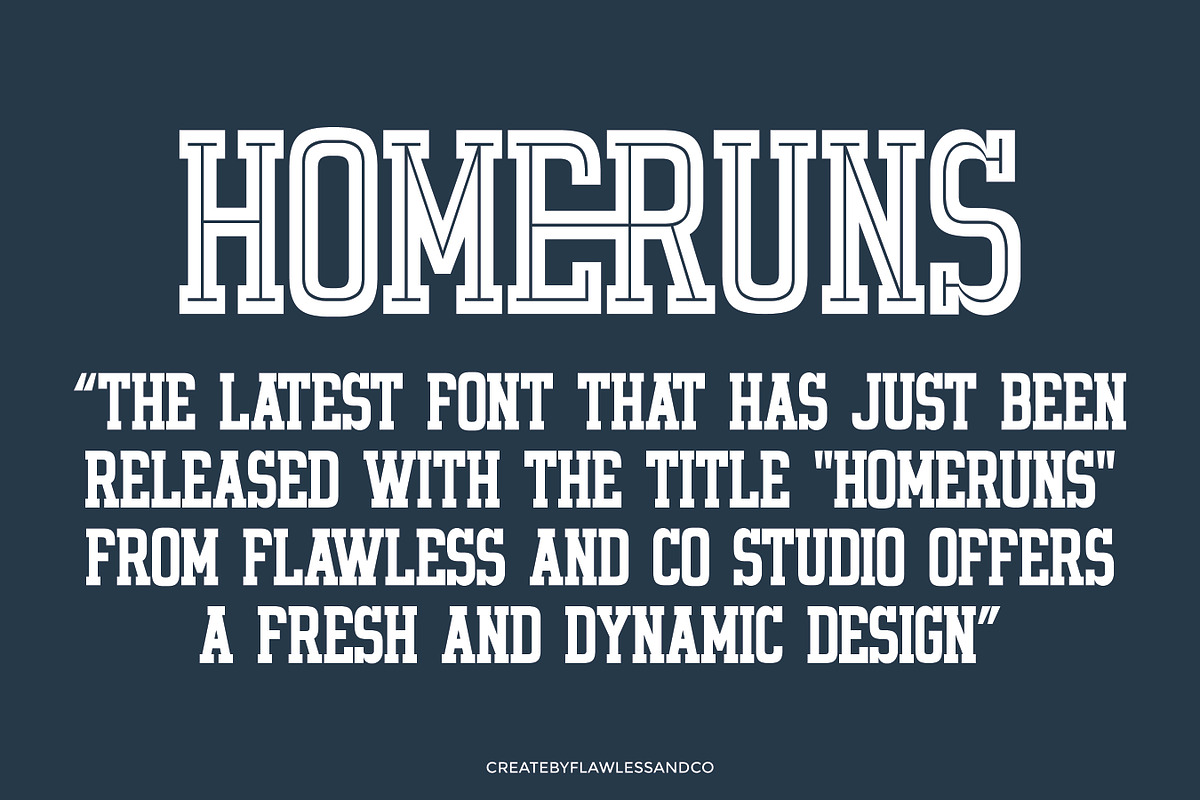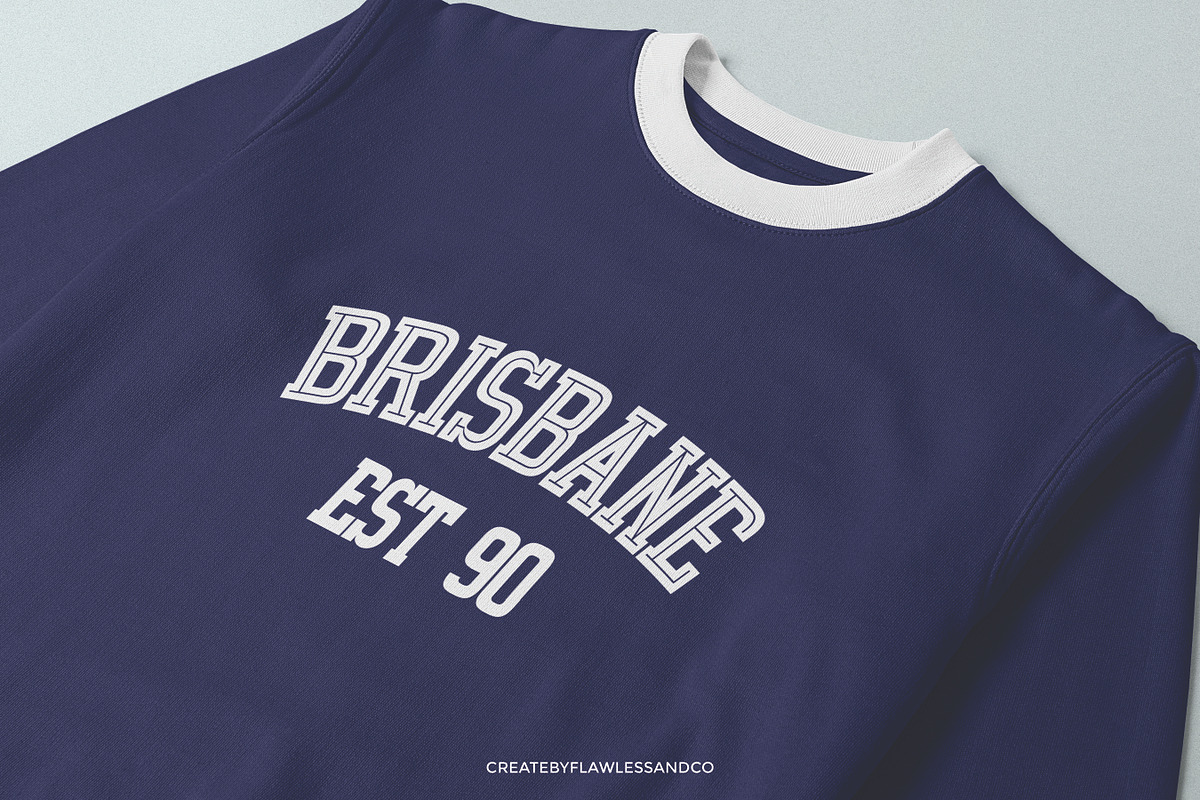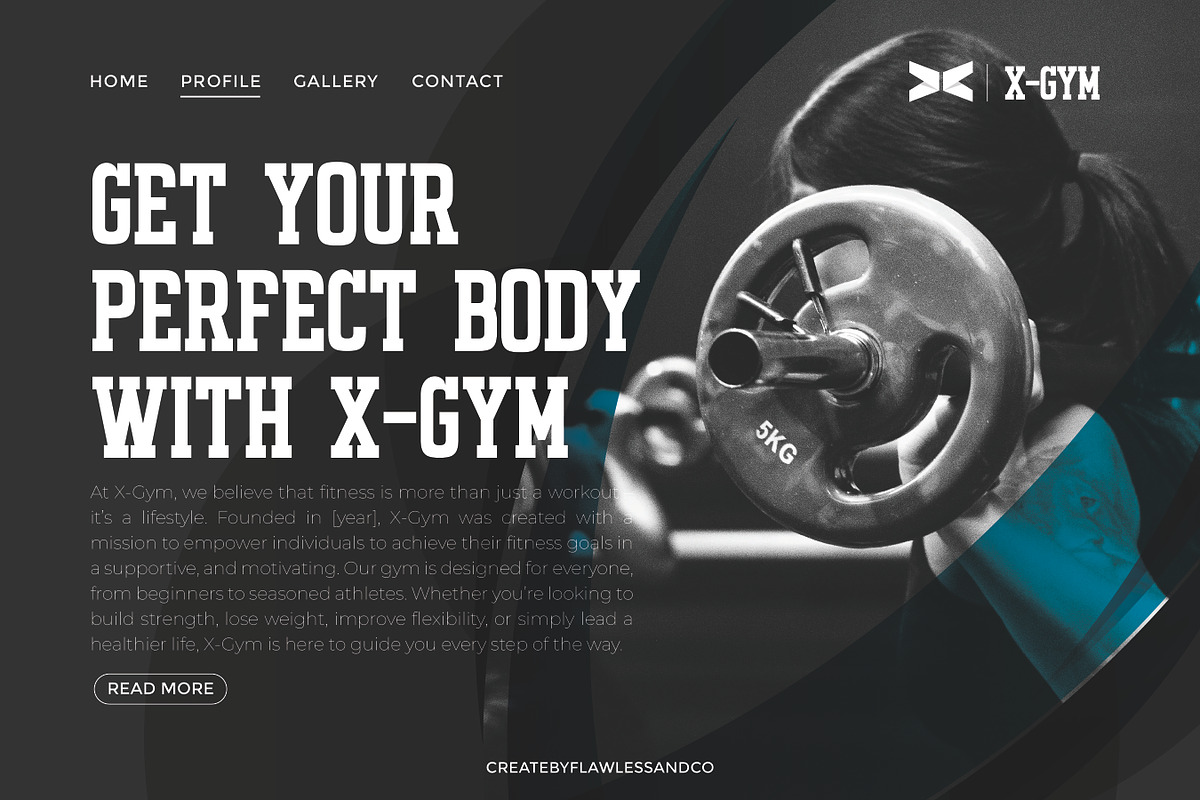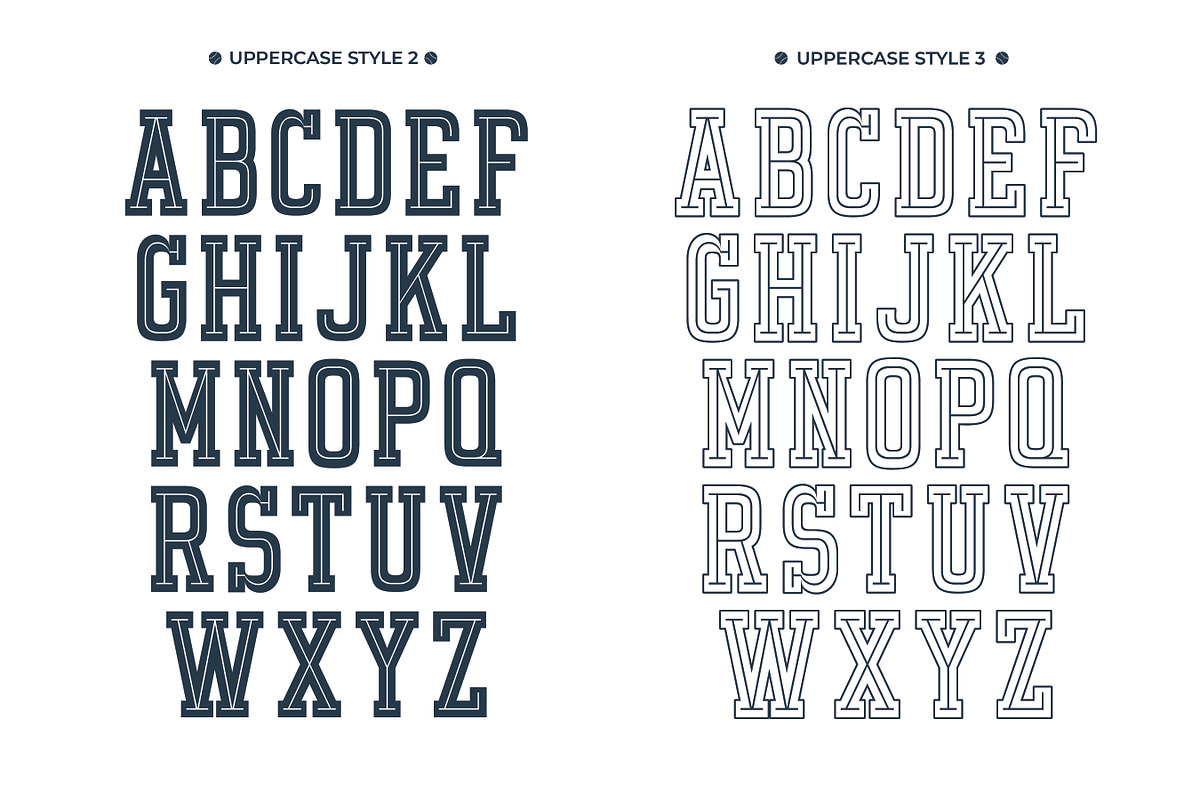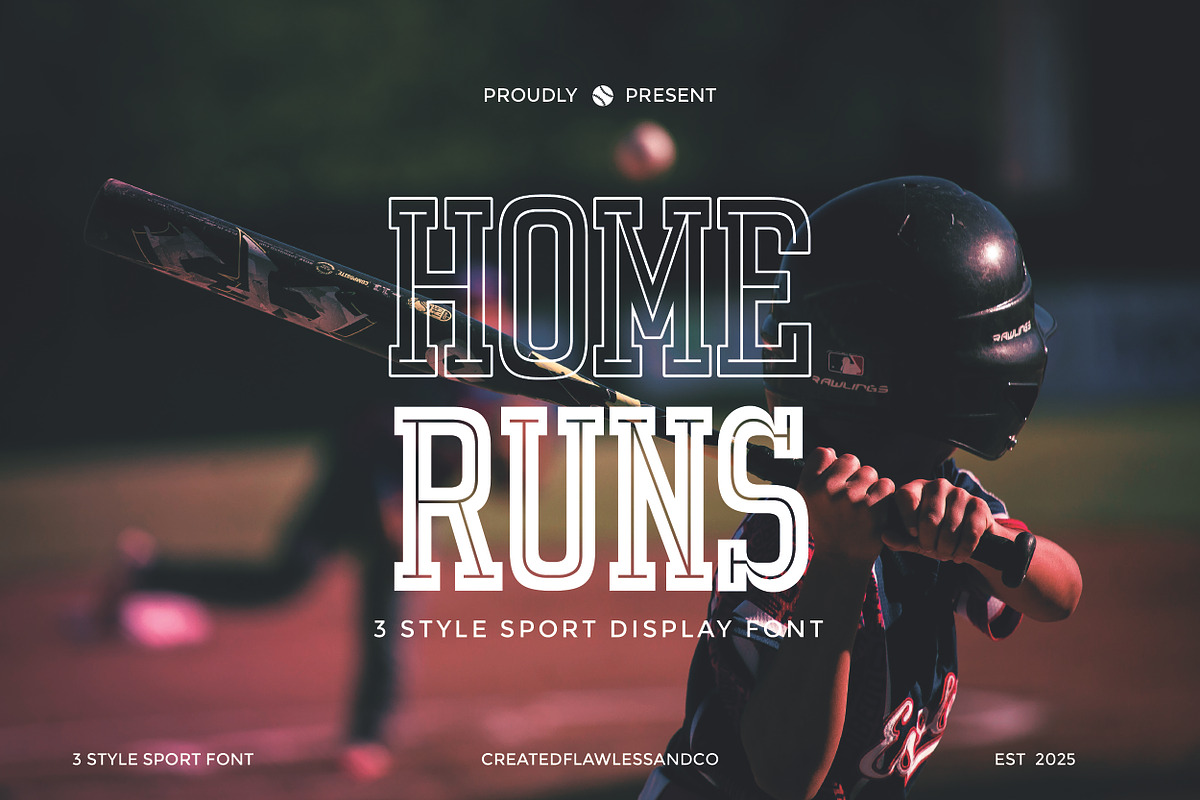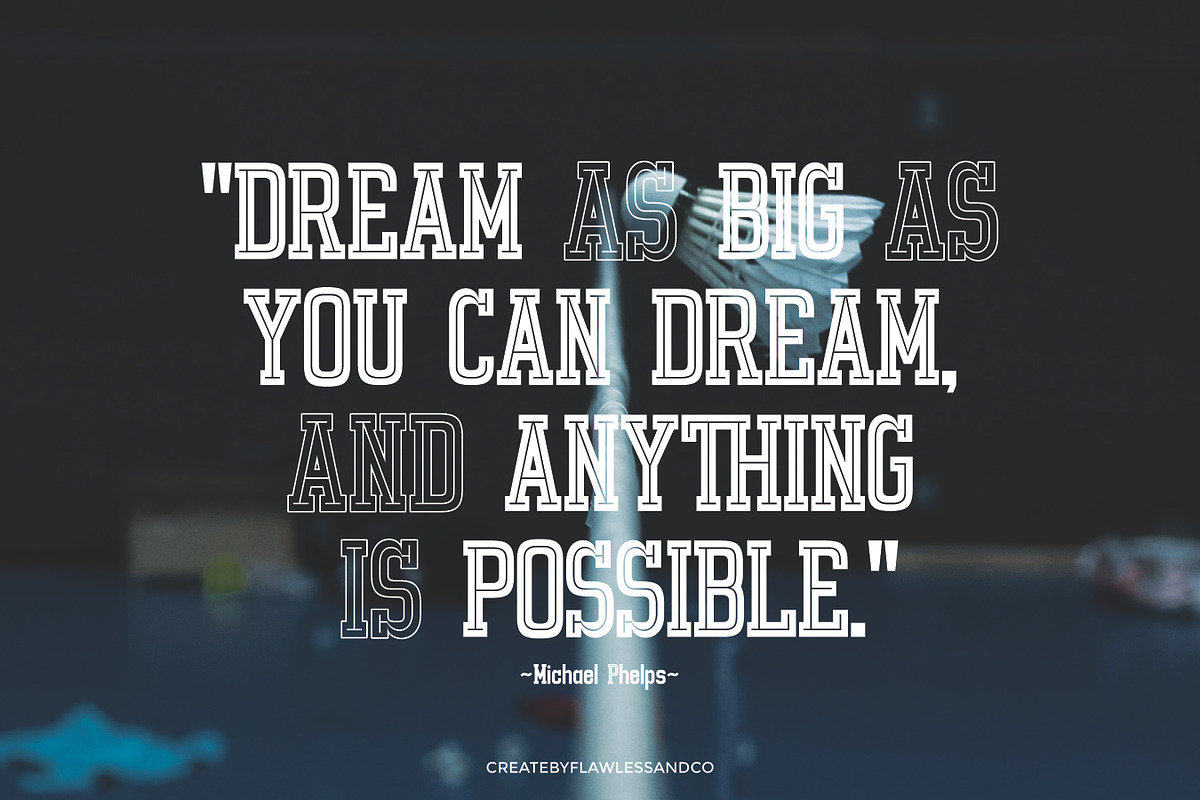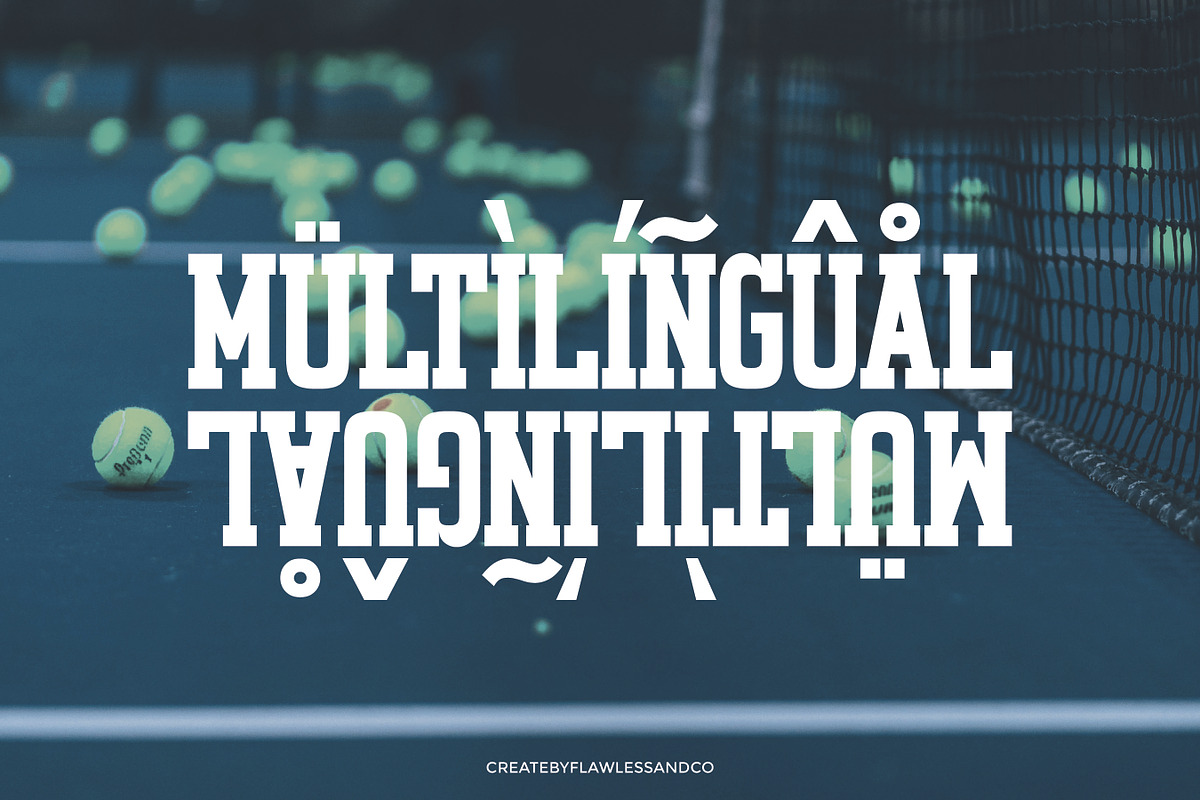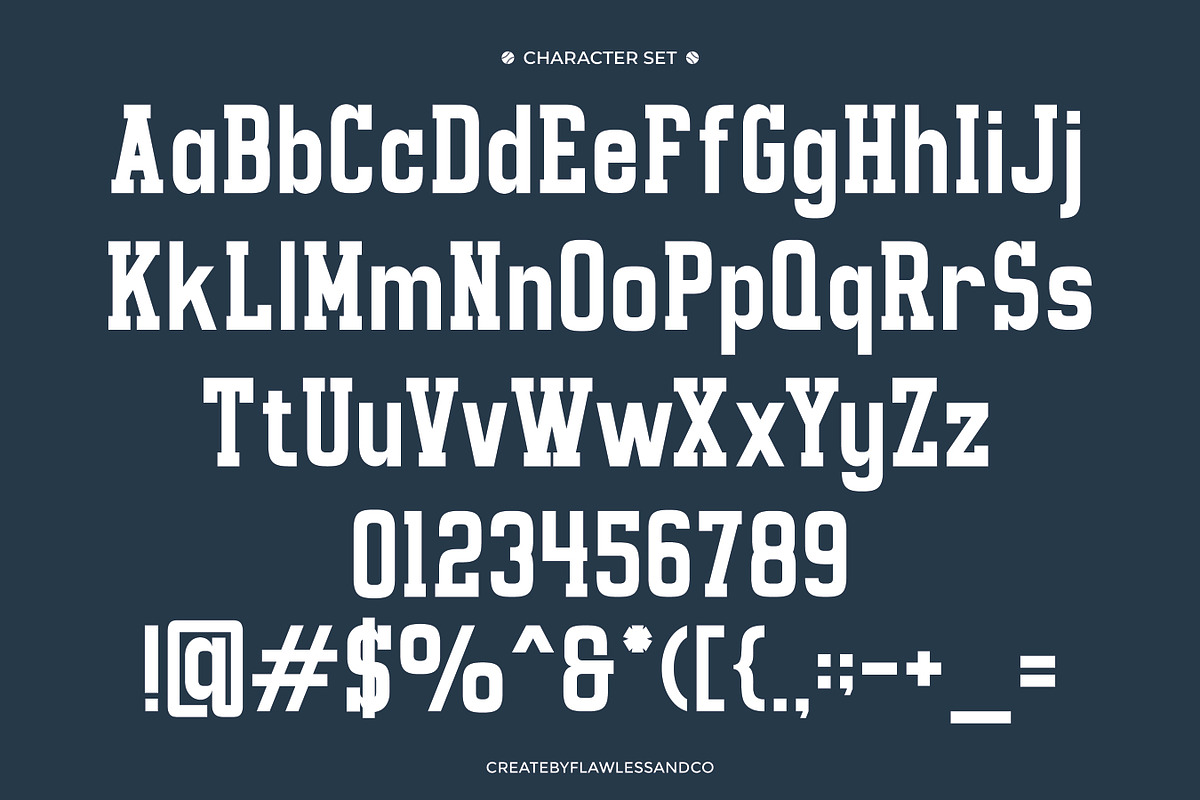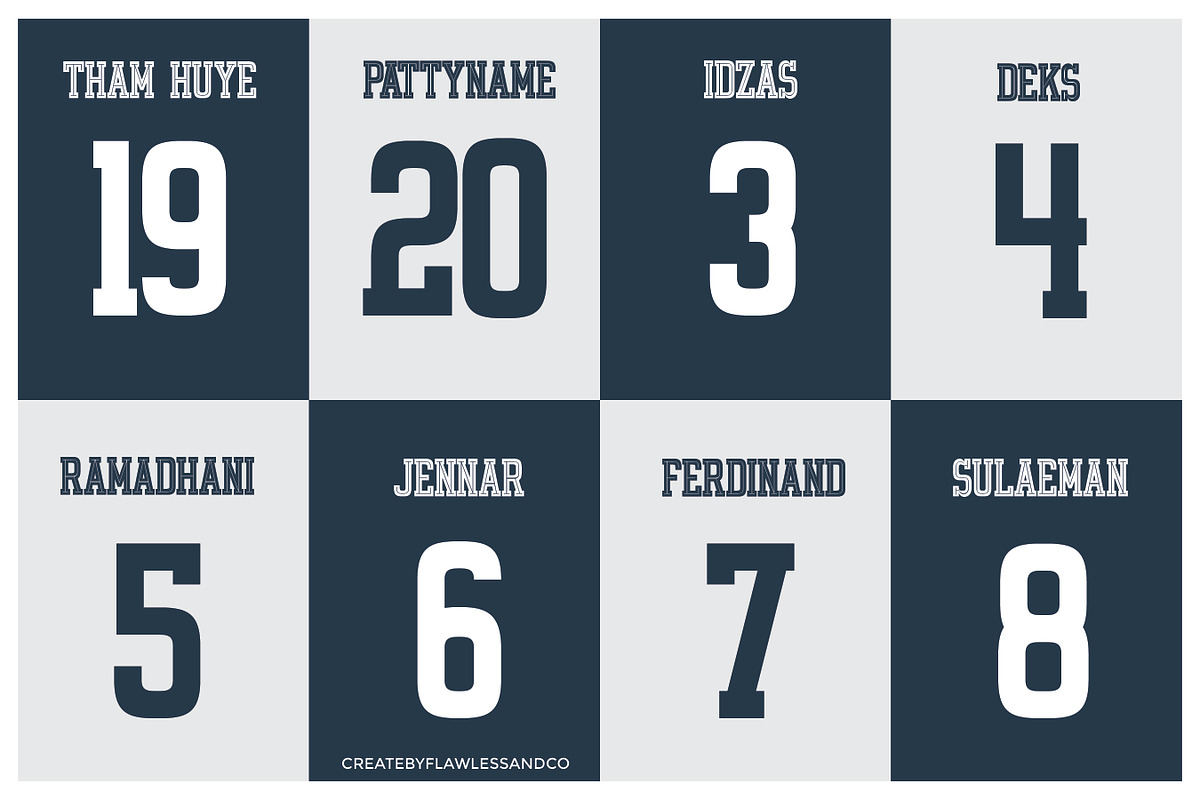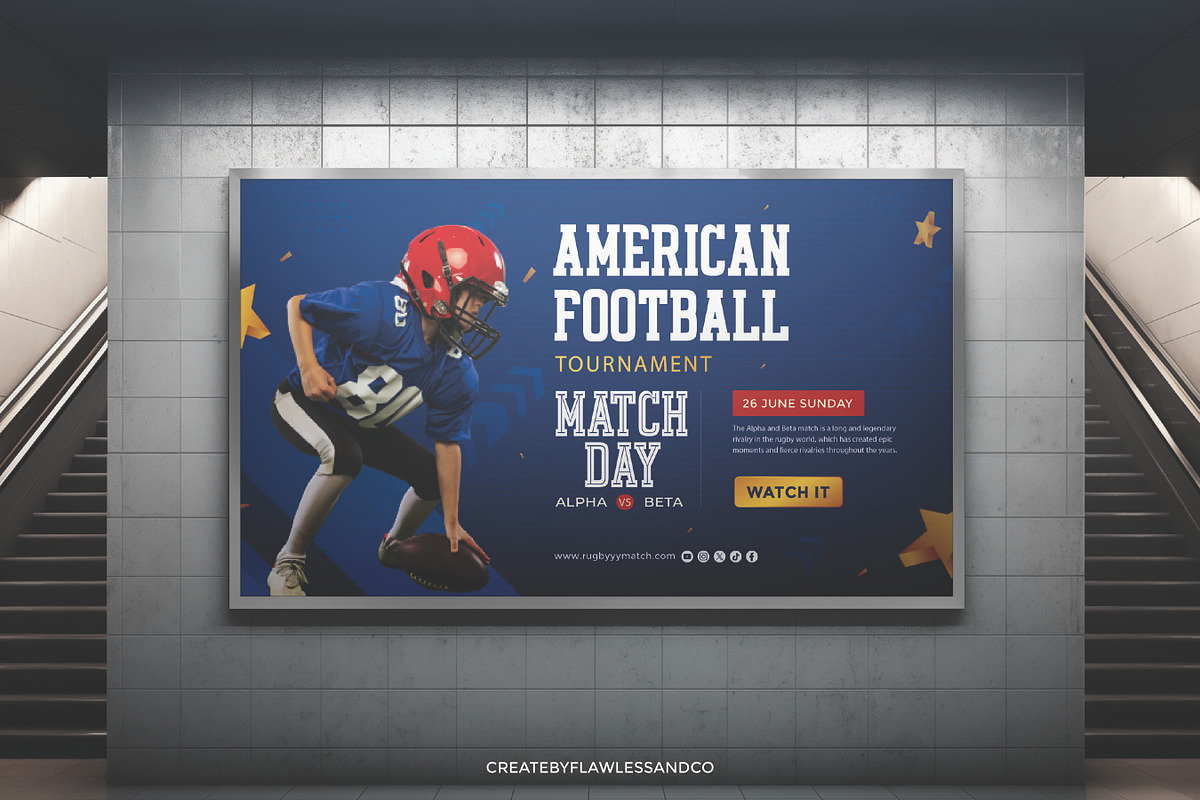
Home Runs - Sport Display
Home Runs – Sport Font with Clean Athletic Appeal
Home Runs is a sport font that blends classic athletic aesthetics with modern versatility. Inspired by the energy of baseball and the dynamic world of sports, this typeface offers a clean, streamlined look—perfect for creators who want to convey movement, focus, and team spirit without the weight of bold styling. Unlike overly aggressive sport fonts, Home Runs keeps things light, structured, and flexible. Each letterform is crafted with balance and precision, making it ideal for sports branding that values clarity and confidence. Whether you're working on a youth team jersey, a collegiate poster, or promotional content for a tournament, this font adapts to any sporty atmosphere.
Home Runs is especially suitable for: Team logos and uniforms Sportswear and merchandise Event posters and championship banners YouTube thumbnails and game highlights Branding for fitness clubs, baseball leagues, and youth academies
With 3 unique styles, Home Runs gives you room to explore different tones—from outlined, to filled, to shadowed—making it a complete toolkit for athletic design. Powerful yet elegant, this font brings energy without shouting. It’s the perfect pick for creators who want to showcase strength and speed, while keeping their visuals clean and modern.
Who Should Use Home Runs?
Home Runs is perfect for designers, sports marketers, and content creators who want a clean, athletic, and professional typeface to bring energy to their projects. This font is ideal for:
- Sports Team Designers — creating logos, uniforms, and banners for baseball, football, basketball, and more.
- Event Organizers — designing posters, tickets, and signage for tournaments, championships, or community sports days.
- YouTube and Media Creators — enhancing thumbnails, channel branding, or highlight reels with a sporty, energetic look.
- Fitness & Athletic Brands — building a strong brand identity for gyms, training programs, or sports gear companies.
- Merch Designers — producing clean, high-impact visuals for shirts, hats, and promotional materials.
Whether you're designing for youth sports leagues or professional sports campaigns, Home Runs delivers clean lines, sporty structure, and versatile style that fits a wide range of energetic and athletic projects.
A Must-Have Font for Brand and Logo Creators and Designers
Home Runs is the perfect typeface for designers who want to bring energy, clarity, and a sporty edge to their branding work. Crafted with a clean and athletic structure, this font delivers a powerful visual identity that fits seamlessly into logo design, product branding, and merchandise. Its versatile form makes it a standout choice for creative professionals who want to communicate movement, strength, and confidence in their projects. Whether you’re designing for a sports brand, active lifestyle product, or a modern business that craves bold and dynamic appeal, Home Runs gives you the perfect balance of impact and style.
Why Choose Home Runs for "Brand and Logo" Projects?
Home Runs offers a unique blend of clean athleticism and modern versatility—making it an excellent choice for branding and logo projects that aim to stand out. Its well-balanced letterforms convey energy and movement without being overly aggressive, allowing your designs to look both dynamic and professional. This font gives your brand the flexibility to feel sporty and fresh while maintaining clear readability across digital and print platforms. Whether you're building a visual identity for a sports team, athletic apparel, or an energetic lifestyle brand, Home Runs brings just the right amount of motion, clarity, and style to your logo and branding toolkit.